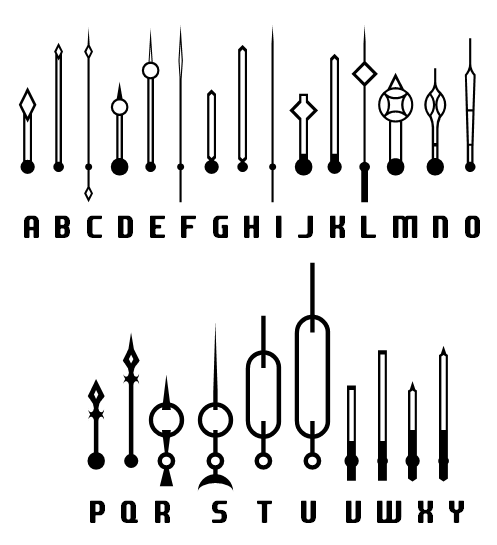
• Work in progress. The purpose was to test whether it was for smartwatches more energy efficient to draw hands as raster images or as vector graphics. Since the to me known platforms did not support vector images, font was my next choice for vector source. Also maybe as base for debate, since in my tests none of the resources seemed significantly better.
This is a cumbersome method for creating digital watch face elements. Watch hands require fine lines, unique angles, and subtle changes in stroke width, all well beyond Fontstruct's capabilities. Your Tudor-style hour hand (J) is a case in point: the diagonals are much thicker than the rest of the outline. Anyone can tell it's a fake. How will you make hands for a Rolex Submariner or a Seiko SKX?
Are you working with Watch Face Studio, Facer, or other software? What's wrong with tiny transparent PNGs for watch hands?
@Frodo7 you are right, it is cumbersome to make some of the hands this way and it will be nearly impossible to make some shapes while maintaining constant "wall" thicknes (not to mention coloration and shading, yet I did not plan on exact replicas), but there are others which are made this way fast and easy.
I play mainly with Facer. Used to play with old and new Samsung tools, but there I cant try on device, since they stopped supporting my watch.
My premise was, the watchfaces in play store same as on Facer, are made in some fixed resolution, which only occasionally matches the native resolution of the watch and must be rescaled in every other case. I admit raster images prepared in some graphic tool are mostly good enough for tiny watch display and I always made them that way, but I wanted to test whether with vector image really would be sharp at any given resolution, while keeping the resource tiny. And font was the only way to "smuggle" vector based shape into watch.
@Peter (Petruuccio): There are three ways you can go. 1) Create your watch face in vector (Adobe Illustrator, Affinity Designer), and rasterize it later to the proper resolution. Vector editors give you a cartoonish style. 2) Create your watch face in a bitmap editor (Photoshop) at double or quadruple resolution and resize it later. Bitmap editors can give you photorealism, too. 3) High-end watch face designers start with a 3D model (using Cinema 4D, Blender) and render it to bitmap later. I would pick the first method as it suits my style the best. A digital watch face doesn't have to be pixel-perfect or photorealistic.
For watch faces I mostly use second method, just with another tool and occasionaly for repated or exact geometry I help me with a CAD program. Like I said earlier, I saw potential in the vector graphic, as it in theory should be same sharp for any native display size (there are many different resolutions even within one platform), while occupying same tiny resource size. This I tested with questionable result. Seems smartwatches are not best at antialising fonts.